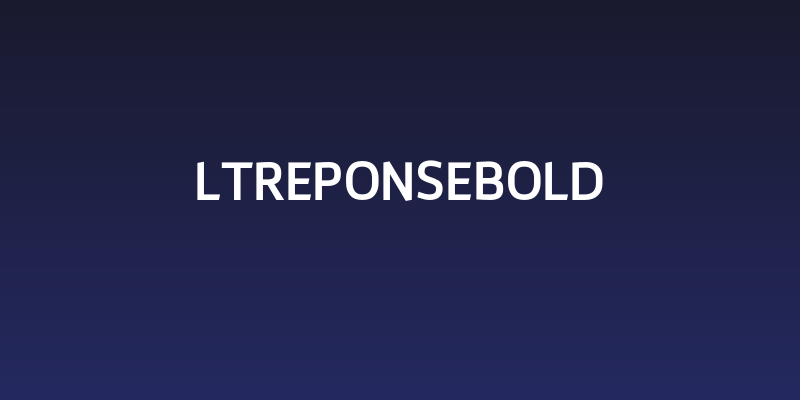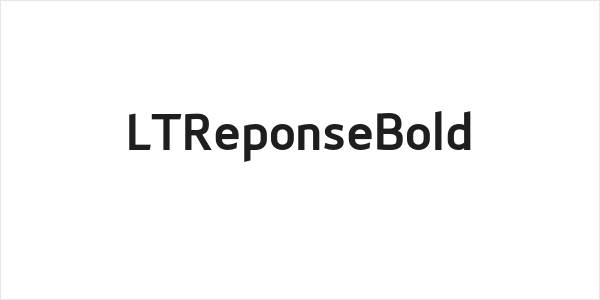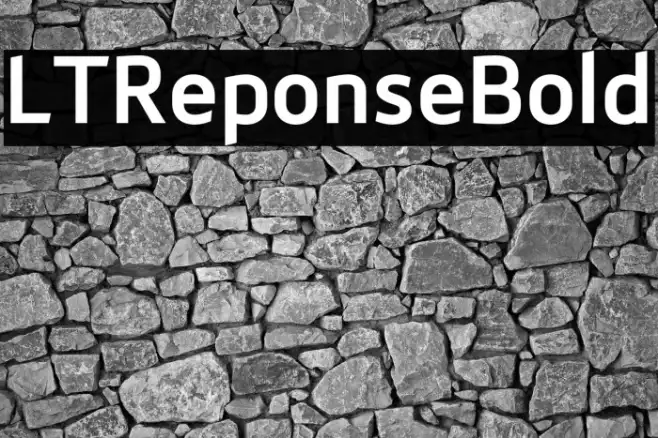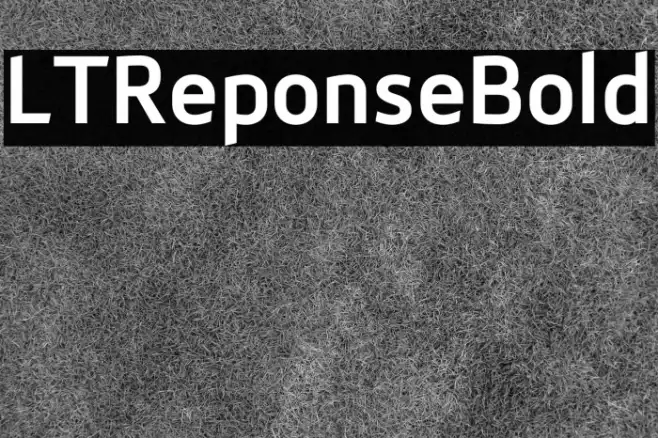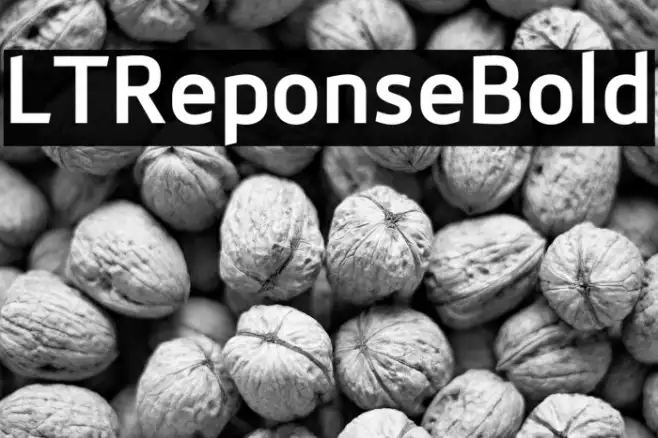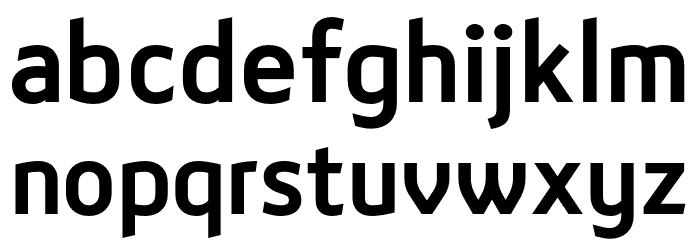
LTReponseBold Font
LTReponseBold Description
This font exhibits a clean and modern sans-serif style, characterized by its bold and uniform stroke weight. The characters are well-balanced, with a slightly condensed appearance that enhances readability while maintaining a strong visual impact. The uppercase letters are tall and commanding, while the lowercase letters are rounded and approachable, creating a harmonious blend of strength and friendliness. The numerals are clear and distinct, ensuring legibility in various contexts. Special characters are designed with precision, complementing the overall aesthetic of the typeface.
| Use Case | Headlines, Logos, Digital Interfaces |
| Proposed Projects | Ideal for branding, advertising, headlines, and digital interfaces where clarity and impact are essential. |